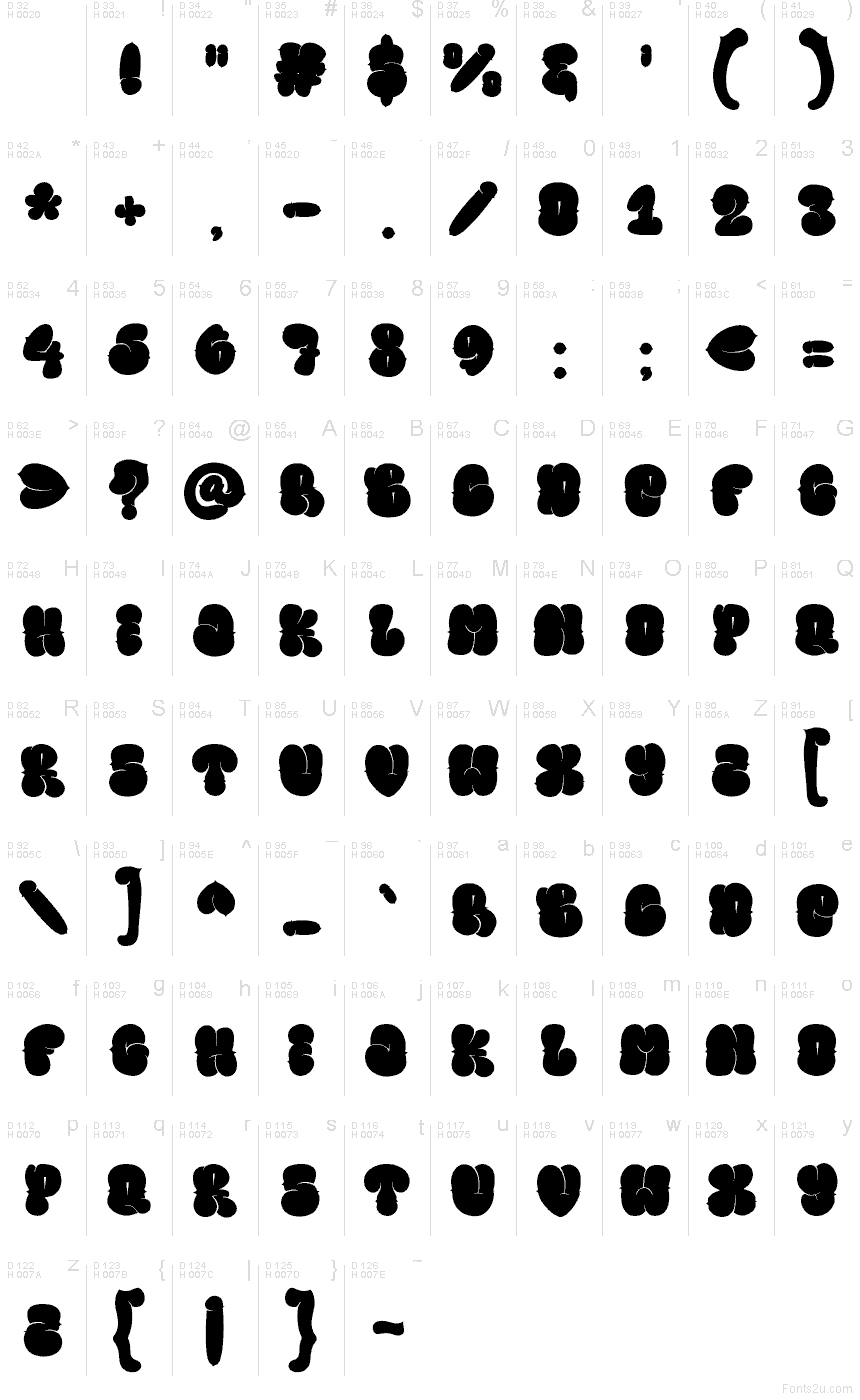
Melto Gofer, created by Sipanji and Figuree, is a free cartoon display font built from oversized, bulbous letterforms with a distinctly psychedelic slant. Broad rounded shoulders give way to pinched joins and dangling curves.
For candy packaging and children's entertainment, the swollen shapes suggest something chewy and animated, yet the same exaggerated silhouette also suits music posters, album art, and small-run offbeat merchandise. In those settings, the letters can become part of the artwork itself, reading as melting candy, blobs, or a playful illustrated emblem rather than ordinary text.